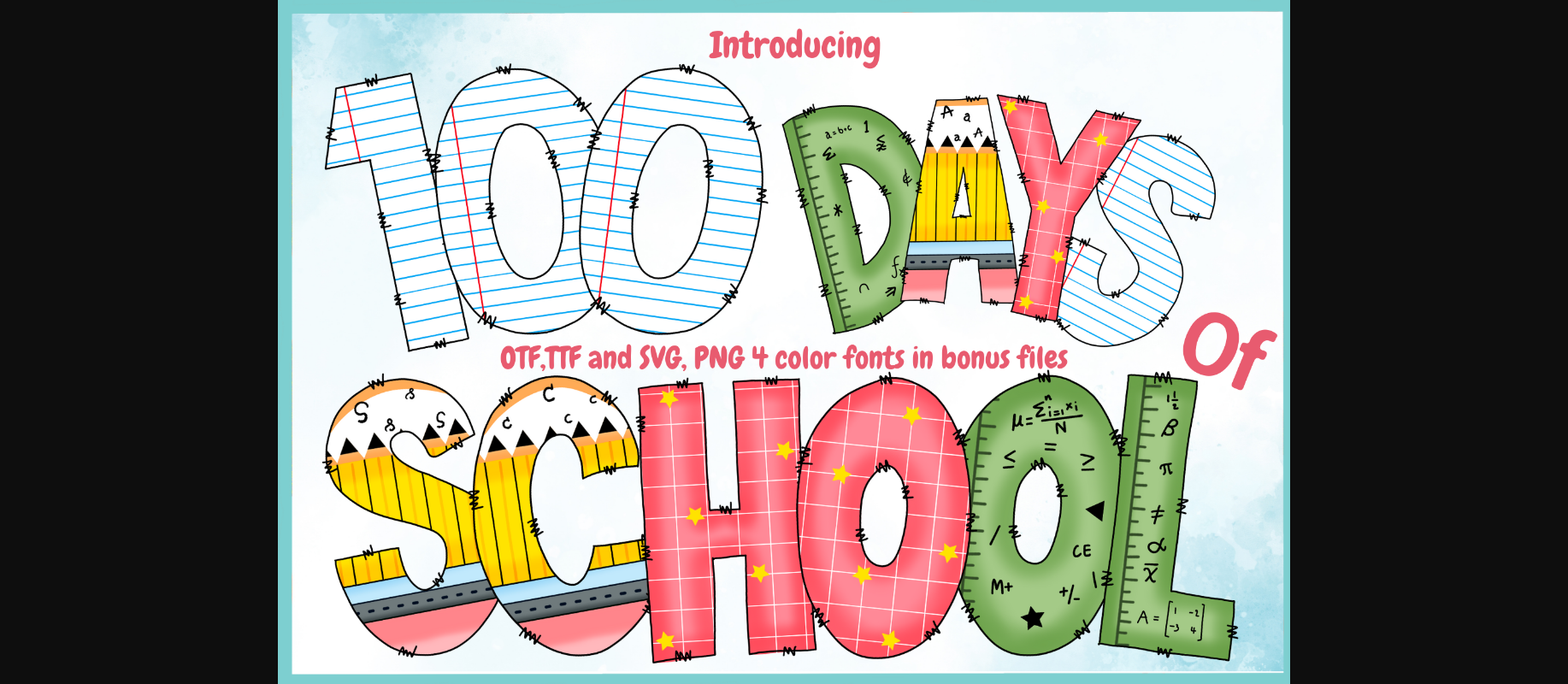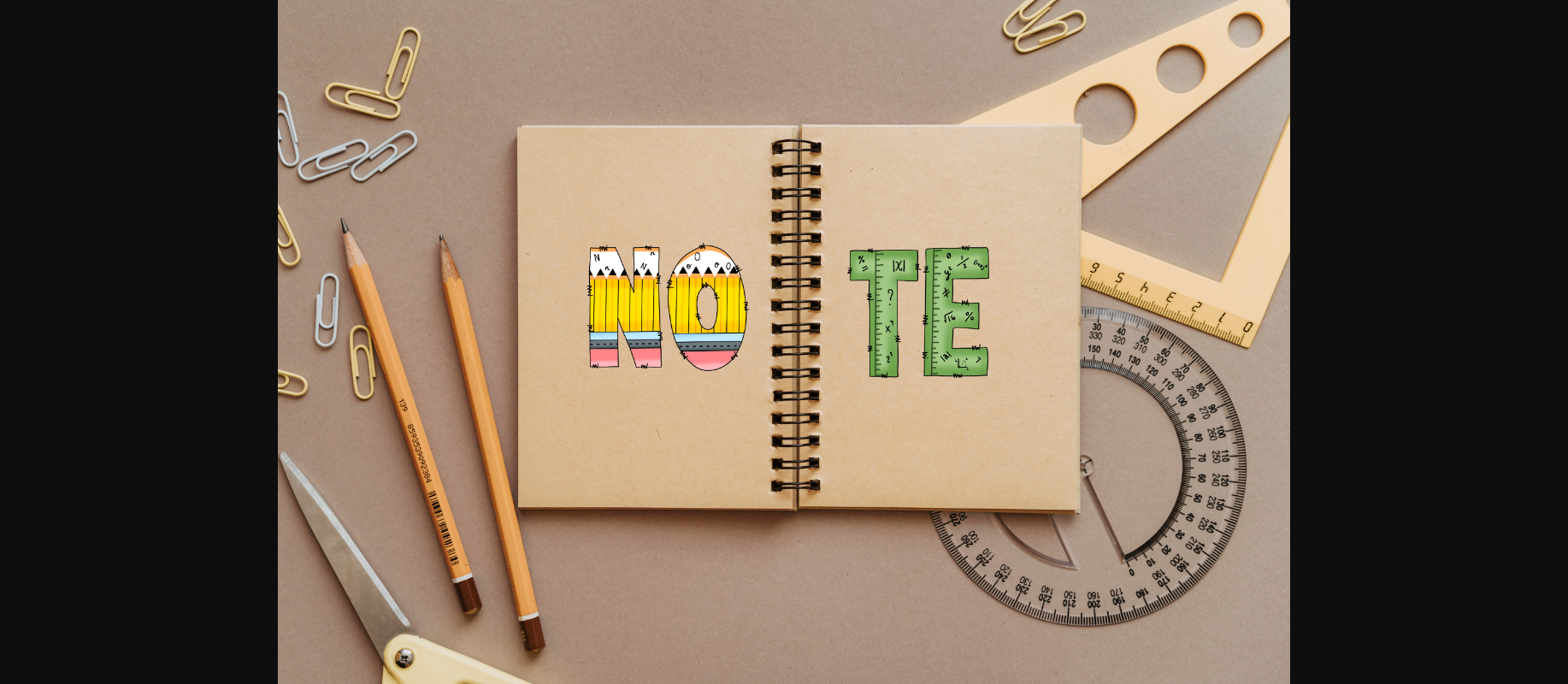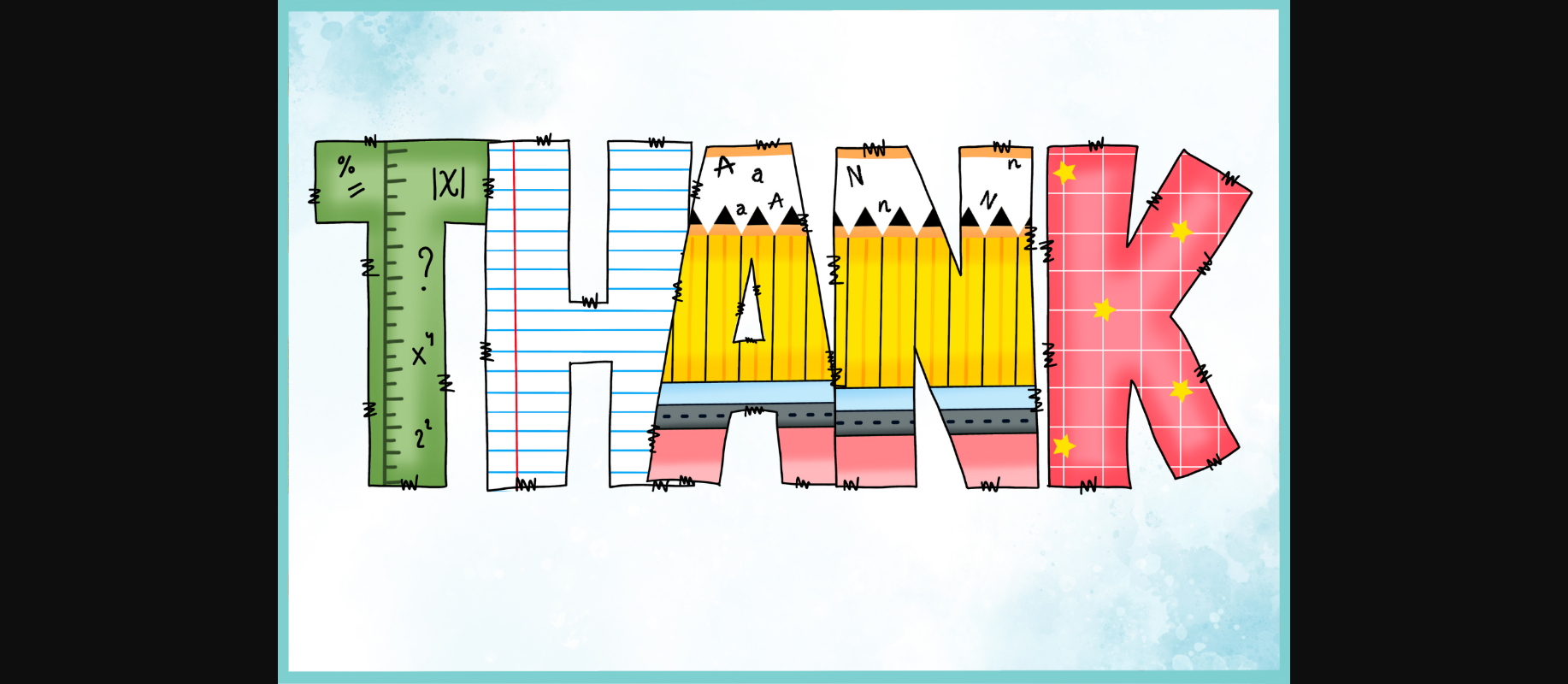
About 100 Days of School Font
100 Days of School is a super cute decorative font with a simple style. It’s suitable for teaching. You can use it for presentation, education, advertising, illustration, and multi-purpose use.